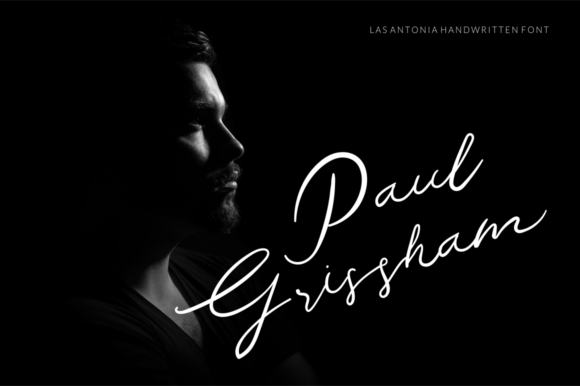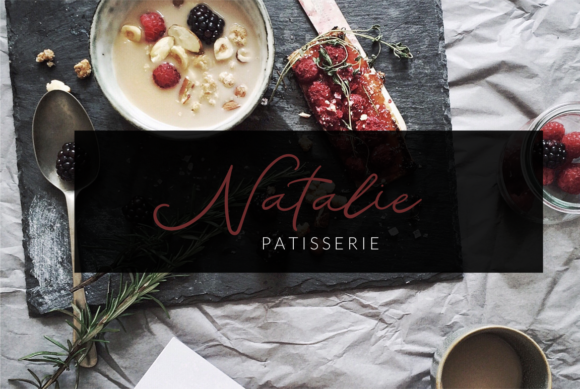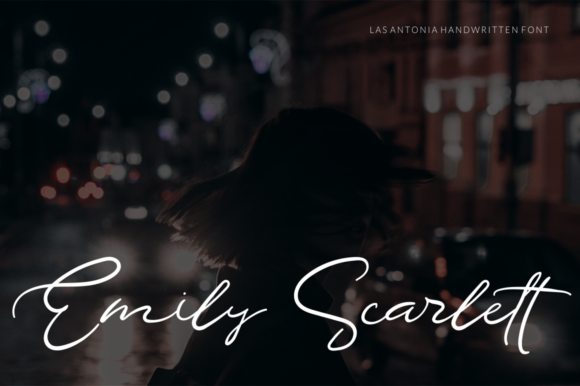
Introduction to Las Antonio Font
Have you ever been working on a creative project, pouring your heart and soul into it, only to feel like something’s missing? A certain je ne sais quoi that elevates it from good to great? That’s where the Las Antonio Font comes in – a true game-changer for designers looking to add a touch of elegance and sophistication to their work.
With its flowing, handwritten style and PUA encoded glyphs, this font is a design resource like no other. Whether you’re working on a high-end marketing campaign or a personal project, Las Antonio Font is the perfect tool to bring your vision to life. Its smooth lines, gorgeous glyphs, and stunning alternates make it a standout choice for anyone looking to create something truly special.
As a free download, Las Antonio Font is an invaluable resource for designers of all levels, offering a level of quality and versatility that’s hard to find. With a transparent background and a wide range of styles to choose from, you’ll be able to create stunning designs with ease – and take your projects to the highest levels.
Key Features of Las Antonio Font
- Comes with a transparent background, making it easy to integrate into various designs
- Features a unique, elegant design that sets it apart from other fonts
Honest Review: Las Antonio Font
I recently had the chance to work with the Las Antonio Font, and I must say it’s been a game-changer for my creative projects. This font has quickly become one of my go-to design resources.
- High-quality design that’s perfect for any creative project
- Transparent background, which makes it easy to work with
- Beautiful and elegant typography that adds a touch of sophistication to any design
One of the things I love about the Las Antonio Font is its versatility. It’s perfect for everything from branding and marketing materials to editorial and web design.
- May not be suitable for bold or dramatic designs, as it’s a more elegant and refined font
- Some users may find the font to be too subtle or understated
Overall, I’m thoroughly impressed with the Las Antonio Font. It’s a high-quality design resource that’s perfect for any creative project. Whether you’re working on a branding campaign or a simple blog post, this font is sure to deliver.
To get the most out of Las Antonio Font, use a transparent background to make your text stand out. You can also experiment with different font sizes and styles to create a unique look.
Las Antonio Font is commonly used for creative projects such as logos, brochures, and social media graphics. Its high-quality design makes it a popular choice for designers and non-designers alike.